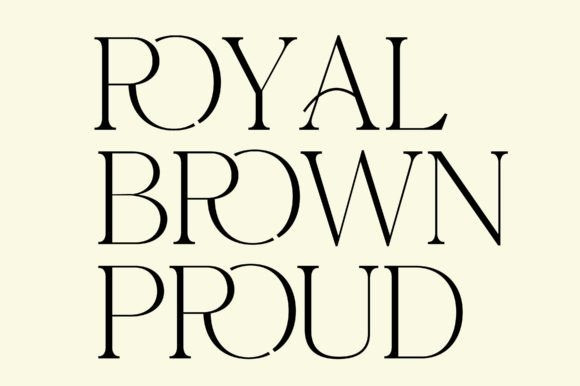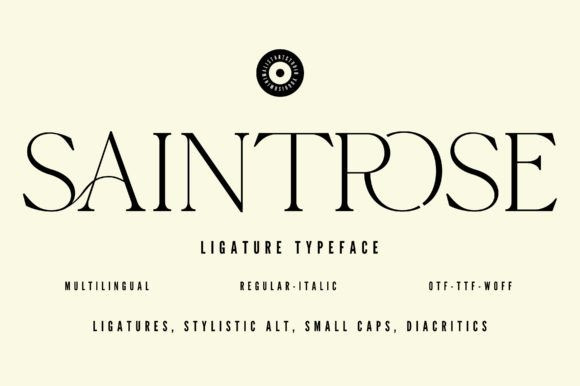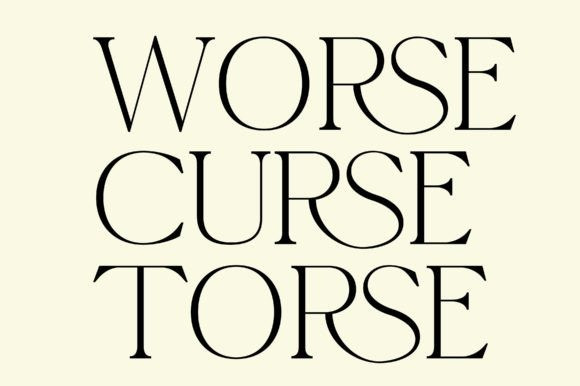
Saintrose Font
Saintrose Font – This serif font is a true embodiment of sophistication, chic, and delicate aesthetics. With its refined features, “SaintRose” is designed to make your creations stand out, leaving an unforgettable impression.